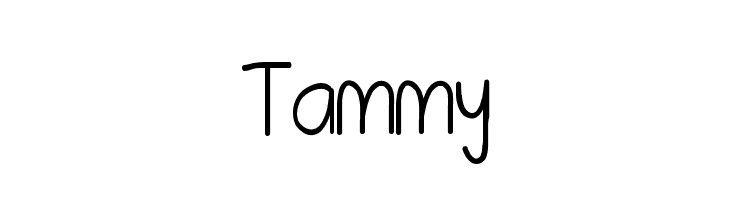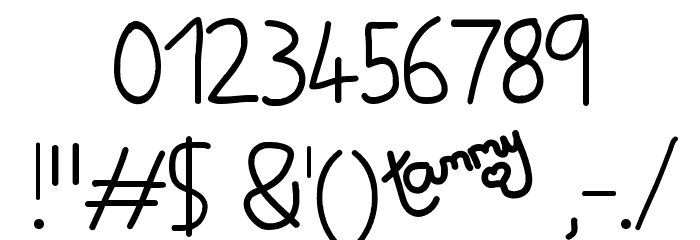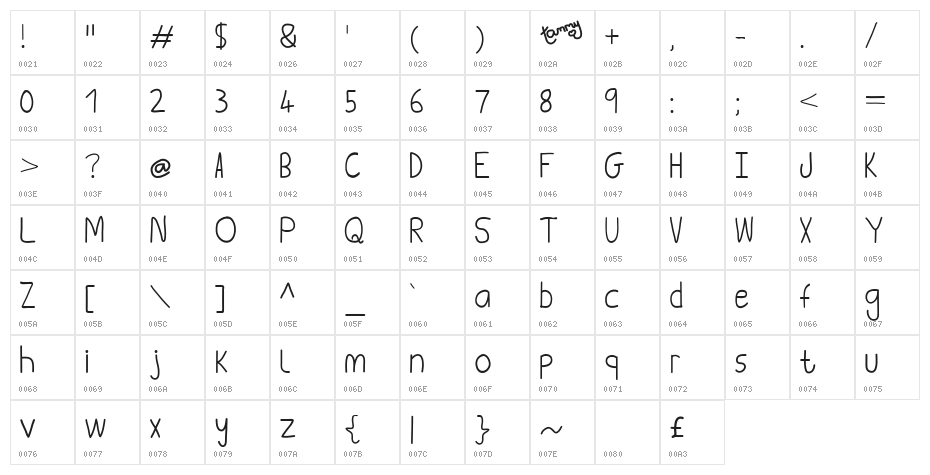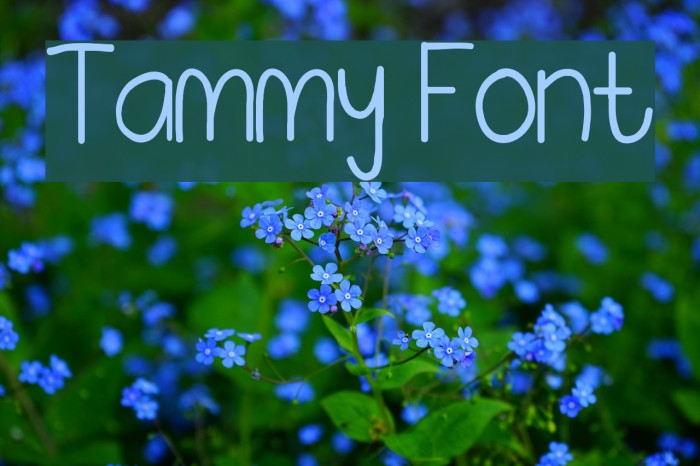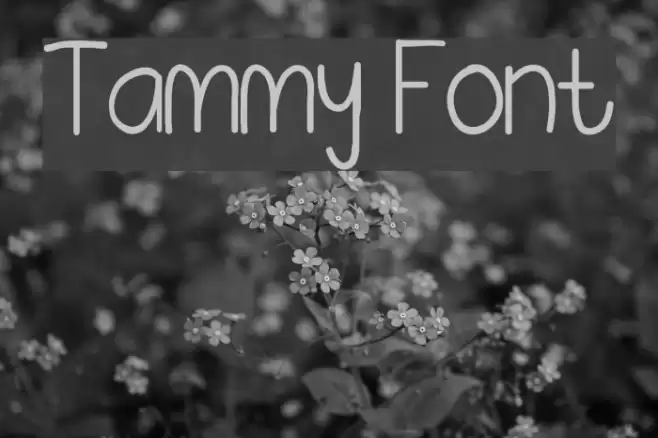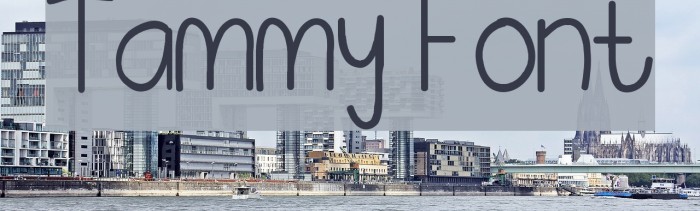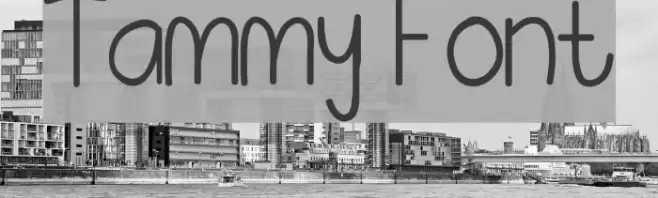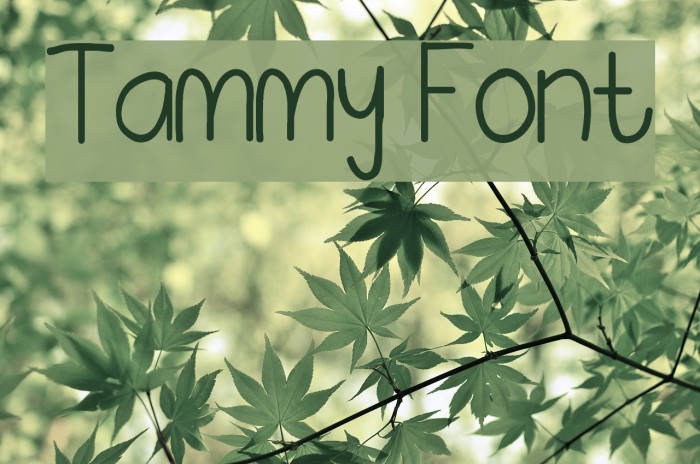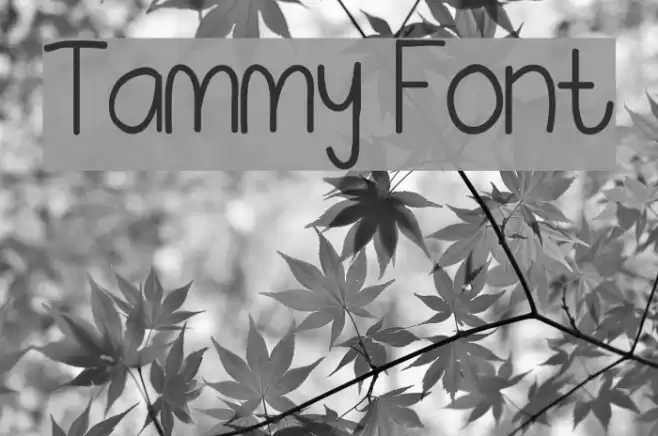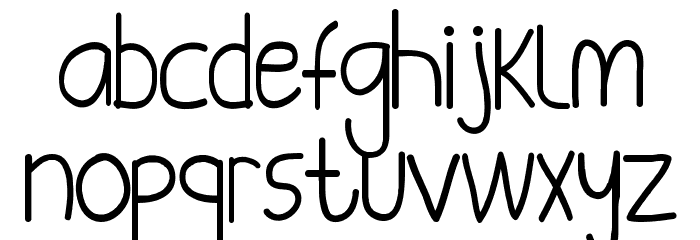
Tammy Font
Tammy Description
This playful and whimsical font features a handwritten style with a casual and friendly appearance. The characters are slightly irregular, adding to its charm and uniqueness. The strokes are consistent in width, giving it a uniform look while maintaining a sense of individuality. The font includes both uppercase and lowercase letters, numbers, and a variety of special characters. Its informal style makes it suitable for creative projects that require a personal touch.
| Proposed Projects | Ideal for children's books, greeting cards, personal blogs, and creative branding projects. |